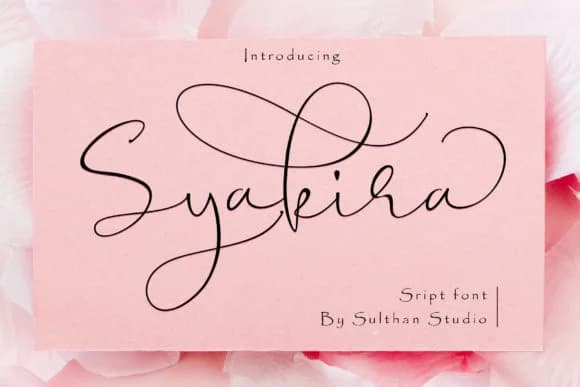
1 / 8About Syakira Script Font
Syakira Script Font by Sulthan Studio is a romantic calligraphy script built for elegant handwriting applications. The typeface arrives as a single, feature-rich file with multiple styles and glyphs that let you create natural-looking variation in your letterforms, giving each project a truly custom feel.
This script works beautifully for wedding invitation suites and engagement announcements where clients expect that personal, hand-penned quality you can't fake. It's equally strong on luxury packaging for boutique product lines, from skincare labels to artisan chocolate boxes where presentation drives purchasing decisions. The flowing letterforms translate particularly well to Etsy product listings and branded packaging where a handmade aesthetic becomes a sales advantage. You'll find it useful for event signage too, from cocktail reception menus to place cards at formal dinners.
Beyond traditional stationery applications, Syakira holds its own in digital spaces as well. Headings and logos benefit from the script's warmth and expressiveness, while it works nicely for social media graphics and branding mockups where you need personality without sacrificing legibility. The character variety built into this font means you can maintain consistency in body text while swapping in alternate letterforms for emphasis exactly where it counts. Add Syakira Script to your collection on Creative Fabrica and start using it on your next project.
- Elegant, Flowing, Syakira
Syakira Script Font is a script font that shines as a display or heading face. Pair it with a clean sans-serif or serif font for body text β the contrast creates a clear hierarchy while the two styles stay balanced and easy to read.